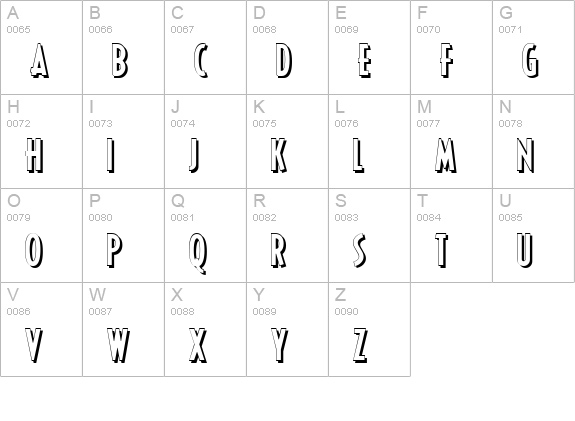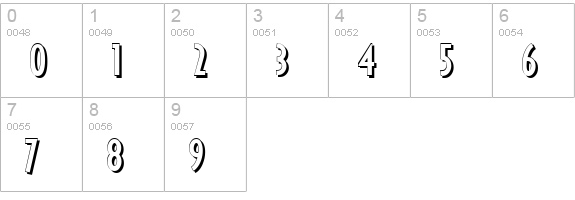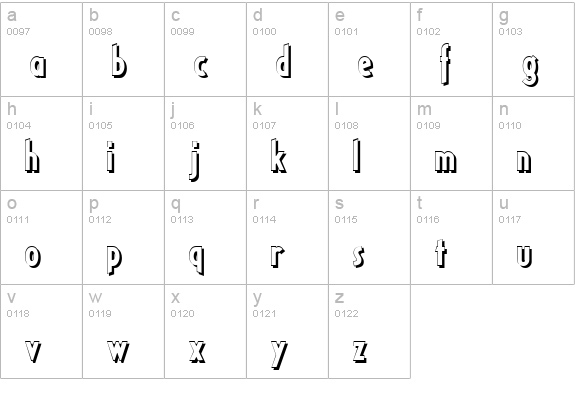
RicksAmericanNF is a stunning display font that captures the essence of classic American signage. Its bold and vintage style evokes a sense of nostalgia and pays homage to the iconic typographic designs of the mid-20th century. With its clean lines and distinct character shapes, this font is perfect for adding a touch of Americana to any project. What sets RicksAmericanNF apart is that it is not only visually appealing but also comes with a fantastic feature—it is free! Yes, you read that right. This extraordinary font is freely available to download at FontsMarket.com, making it accessible to all designers and typographers who appreciate high-quality typography without breaking the bank. Whether you're working on a retro-themed poster, a vintage-inspired logo, or a branding project that needs a touch of timeless elegance, RicksAmericanNF is the ideal choice. Its versatility allows it to be used in various contexts, from print to digital media, and its legibility ensures that your message will be conveyed effortlessly. The attention to detail in RicksAmericanNF is evident in every curve and stroke of its characters. From the perfectly balanced letterforms to the meticulous spacing, this font exudes craftsmanship and sophistication. Its uppercase and lowercase letters seamlessly complement each other, offering a harmonious interplay that adds depth and character to your designs. With RicksAmericanNF, you have the freedom to create captivating visuals that stand out from the crowd. Its versatility and timeless appeal make it suitable for a wide range of applications, including advertising, packaging, headlines, and more. This font truly embodies the spirit of American design, making it a must-have in your typographic arsenal. So, what are you waiting for? Don't miss out on the opportunity to enhance your designs with this exceptional font. Download RicksAmericanNF for free at FontsMarket.com and start adding that touch of classic Americana to your next project. Unleash your creativity and let RicksAmericanNF elevate your designs to new heights.